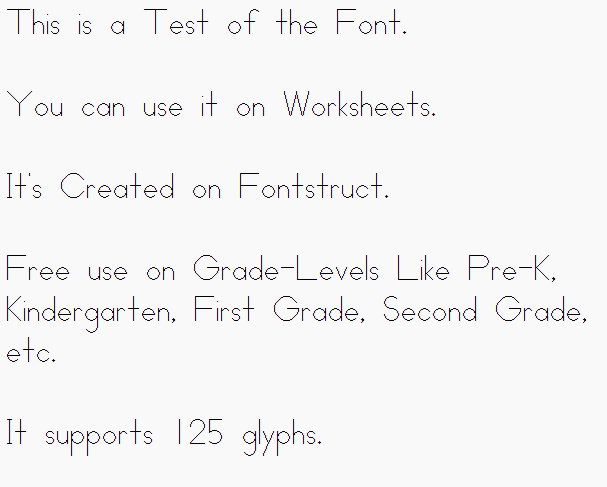
This is a Test.
Wow! Well done on making a kid-friendly font. It's GREAT, I'd download it if possible!
It's just a pixelated version of the Zaner-Bloser font.